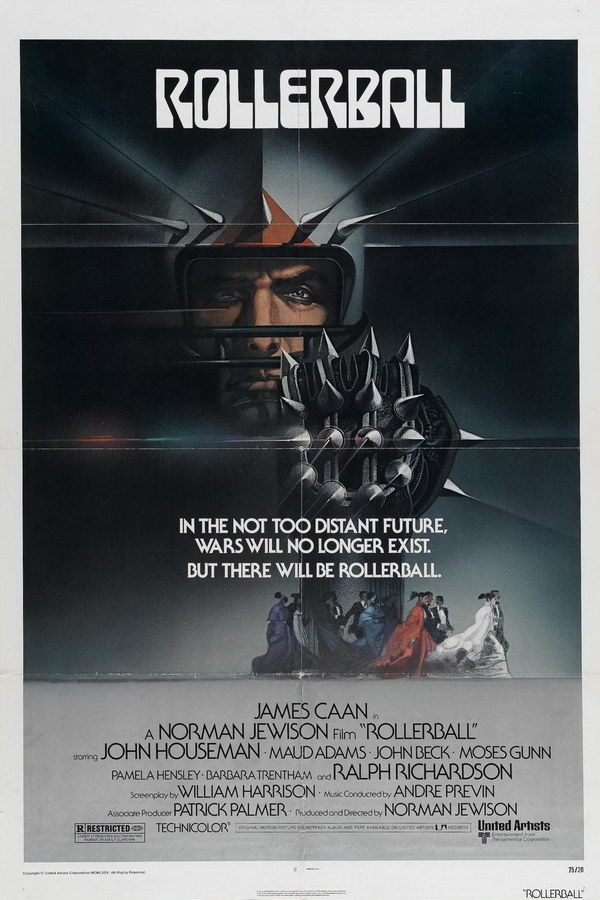
Rollerball Font
EntertainmentRollerball is a 1975 science fiction film set in a dystopian future where corporations control society and violent roller-skating matches serve as a form of entertainment and control.